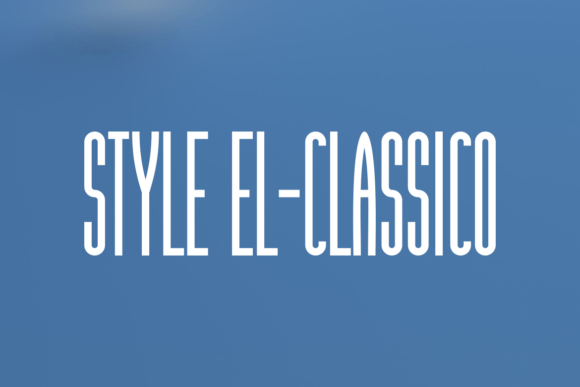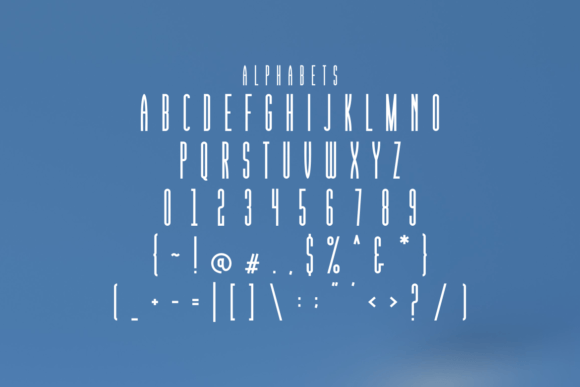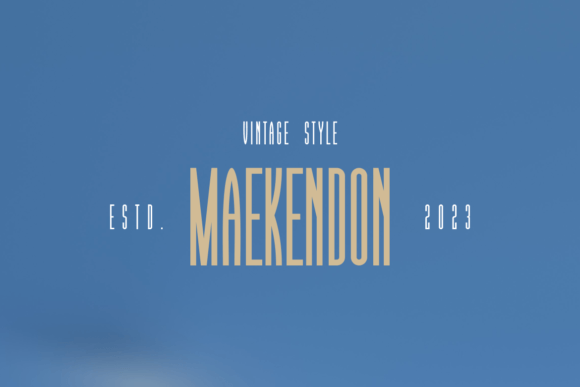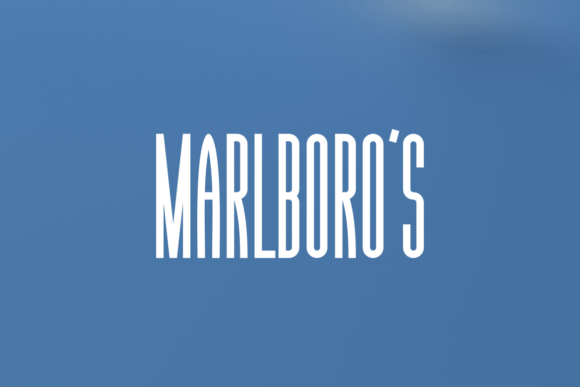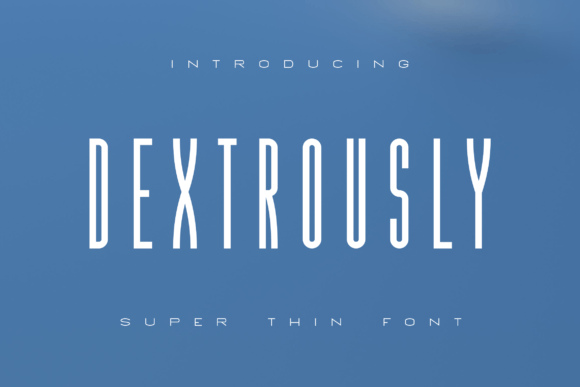
Dextrously Font: A Timeless Classic with a Vintage Twist
In the world of typography, fonts play a crucial role in conveying the tone and aesthetic of a design. One font that has stood the test of time is the Dextrously Font, a legendary font that has been revived with a modern twist. Originally designed in the 1970s, this font has been reimagined with a slimmer and longer design, making it a versatile choice for designers and crafters.
A Slimmer and Longer Design
The Dextrously Font was made slightly slimmer and longer, giving it a unique and elegant appearance. This design tweak allows the font to be used in a variety of contexts, from vintage-inspired designs to modern and minimalist layouts. The font’s slender lines and extended letterforms make it perfect for headlines, titles, and descriptions that require a touch of sophistication.
Tight Spacing and Stretched Variations
One of the key features of the Dextrously Font is its flexibility when it comes to spacing. The font can be combined with tight letter spacing, creating a compact and cohesive look that is ideal for body text and descriptions. Alternatively, the font can be stretched to create a more dramatic effect, making it suitable for headlines and titles that require a bold statement.
Old-Font Modelling and Vintage Fashion Fonts
The Dextrously Font is often referred to as an old-font modelling, or an old font that can be combined with vintage fashion fonts. This is due to its classic design, which evokes a sense of nostalgia and timelessness. The font’s vintage charm makes it a popular choice for designers who want to create designs that are reminiscent of a bygone era.
Supporting Font for Vintage Products
In many cases, the Dextrously Font can be used as a supporting font for vintage products. Its classic design and elegant appearance make it an excellent choice for descriptions, labels, and packaging that require a touch of vintage charm. Whether you’re designing a vintage-inspired poster, brochure, or product label, the Dextrously Font is an excellent choice.
Why Designers and Crafters Love Dextrously Font
So, why do designers and crafters love the Dextrously Font? Here are just a few reasons:
- Versatility: The Dextrously Font can be used in a variety of contexts, from vintage-inspired designs to modern and minimalist layouts.
- Elegance: The font’s slender lines and extended letterforms make it perfect for headlines, titles, and descriptions that require a touch of sophistication.
- Flexibility: The font can be combined with tight letter spacing or stretched to create a more dramatic effect.
- Vintage charm: The font’s classic design evokes a sense of nostalgia and timelessness, making it a popular choice for vintage-inspired designs.
In conclusion, the Dextrously Font is a timeless classic that has been revived with a modern twist. Its slimmer and longer design, flexible spacing options, and vintage charm make it a versatile choice for designers and crafters. Whether you’re designing a vintage-inspired poster, brochure, or product label, the Dextrously Font is an excellent choice. So, why not give it a try and see how it can elevate your designs?
With its rich history, elegant design, and flexibility, the Dextrously Font is a must-have for any designer or crafter looking to add a touch of vintage charm to their work.